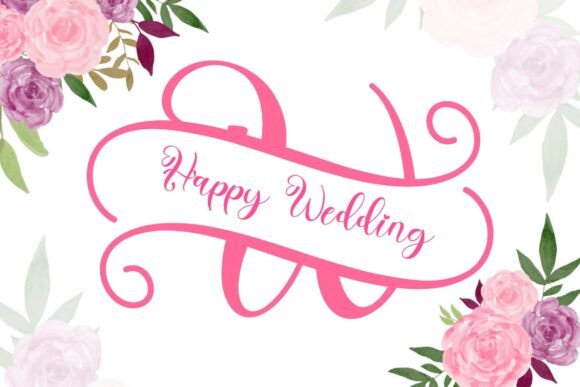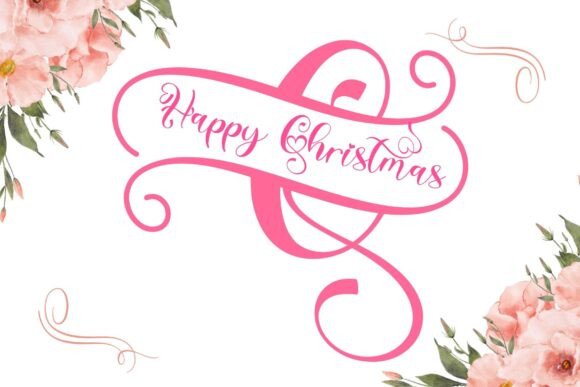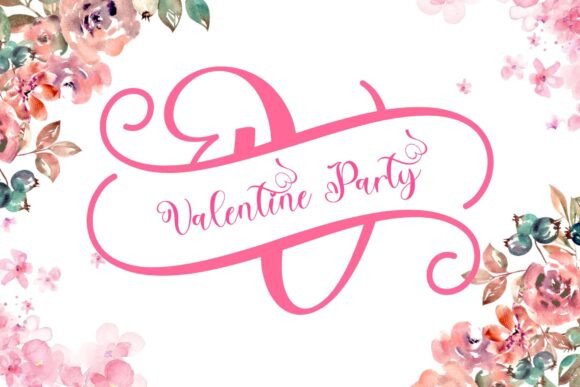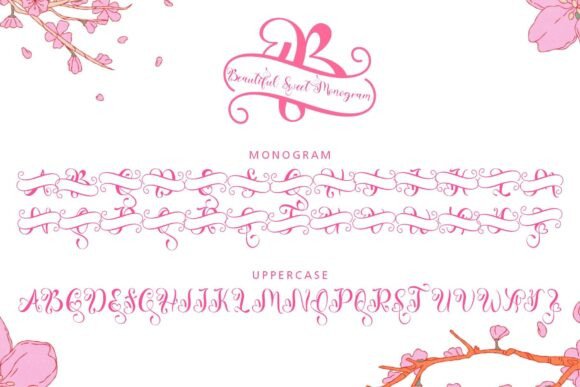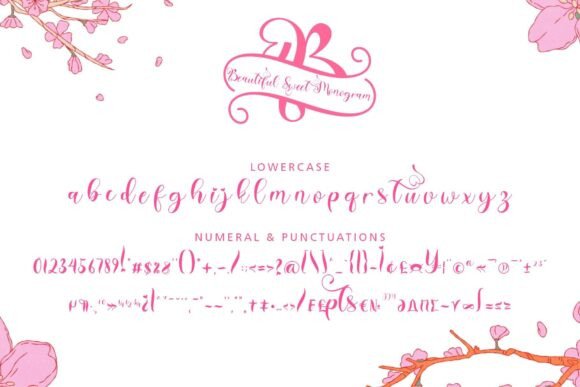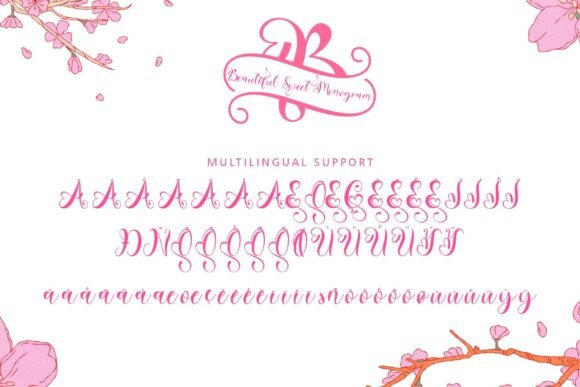
Bring Your Designs to Life with the Perfect Touch
As a designer, have you ever found yourself staring at a blank page, waiting for that spark of creativity to strike? It’s a moment we’ve all experienced – the thrill of bringing an idea to life, of crafting something truly special that captures the essence of a person, event, or moment. For me, that spark often comes in the form of a beautiful, handwritten font.
Enter the Beautiful Sweet Monogram Font, a stunning script font designed to add a touch of elegance and whimsy to any project. With its range of capital letters, lowercase letters, numbers, punctuation, and multilingual support, this font is the perfect tool for designers looking to add a personal touch to their work. Whether you’re creating wedding invitations, photography branding, or holiday cards, the Beautiful Sweet Monogram Font is a valuable asset that’s sure to elevate your designs to the next level.
Beautiful Sweet Monogram Font Key Features
- Unique monogram design with intricate details and ornate flourishes, making it perfect for adding a touch of elegance to wedding invitations, stationery, and other special occasion materials.
- Features a beautiful script and cursive style, ideal for creating beautiful and romantic typography in various design projects.
- Includes a comprehensive character set, including uppercase and lowercase letters, numbers, and punctuation marks, making it a versatile font for everyday use.
Beautiful Sweet Monogram Font Review
I recently had the chance to work with the “Beautiful Sweet Monogram Font” and I have to say, it’s a mixed bag. Let’s start with the good stuff:
- ✨ The font is incredibly versatile and can be used for a wide range of designs, from invitations to clothing labels.
- ✨ The monogram designs are beautifully intricate and add a touch of elegance to any project.
- ✨ The font is highly customizable, making it easy to adjust to fit your specific design needs.
However, there are some limitations that I want to highlight:
- ⚠️ The font can be quite dense, which can make it difficult to read in certain situations.
- ⚠️ Some of the monogram designs may not be suitable for large-scale use, as they can become overwhelming.
- ⚠️ The font requires a decent level of design expertise to use effectively, which can be a barrier for beginners.
Overall, I’d say that the “Beautiful Sweet Monogram Font” is a solid choice for designers who are looking for a unique and elegant font for their projects. However, it may not be the best fit for those who are new to design or who need a font that’s easy to read at large sizes.
The Beautiful Sweet Monogram Font is perfect for creating custom invitations, party decorations, and personal stationery. To get the most out of it, try using it in combination with other elegant fonts and decorative elements. Experiment with different colors and styles to match your brand or event theme.